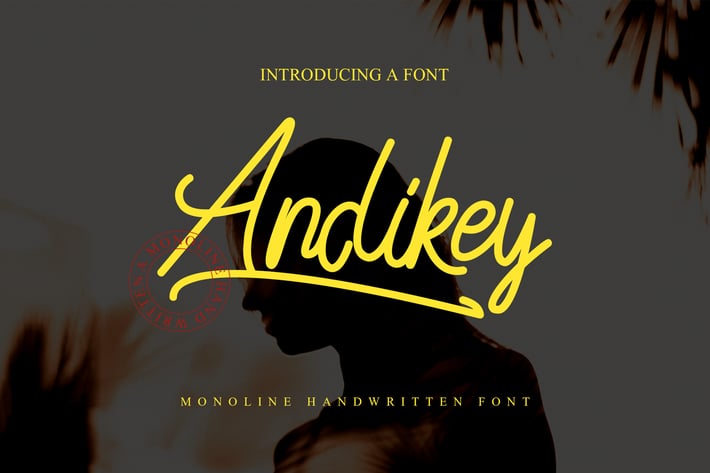
Andikey Monoline Font
Andikey monoline Font Suitable for any graphic designs such as branding materials, t-shirt, print, business cards, logo, poster, t-shirt, photography, quotes, coffe shop.etc